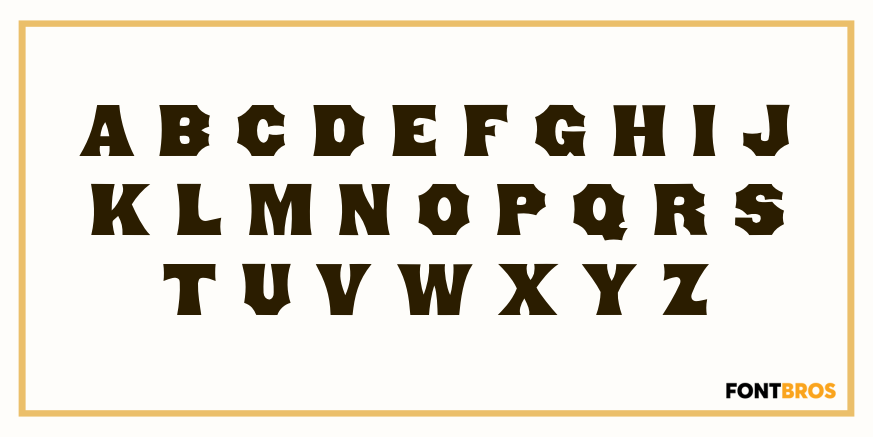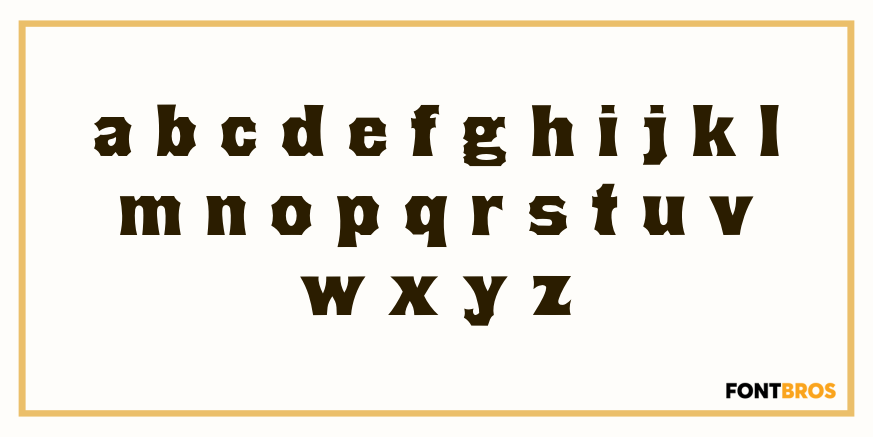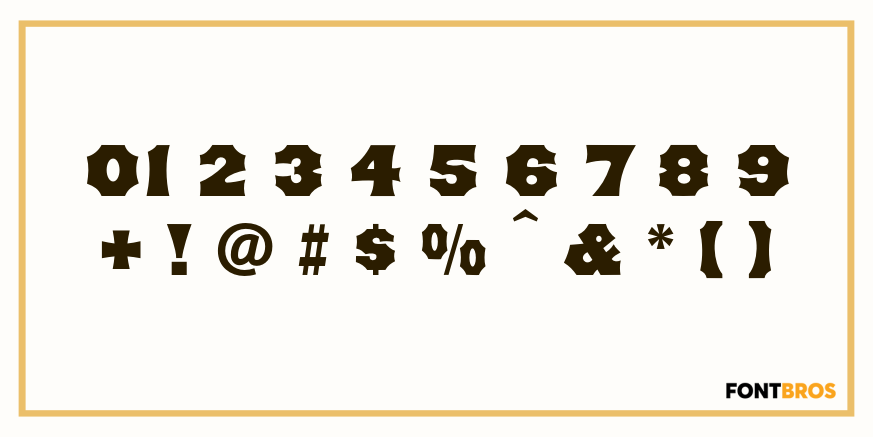
Minnesota
Another of the ?must have? wood types for those doing poster work with an old-time flavor. Very readable, therefore very useful. We did ads for an old western tourist railroad, and used this often. William Page was a prolific designer of wood types, and his fonts were at every poster print shop we visited.
Minnesota includes 256 glyphs.
Minnesota by Solotype